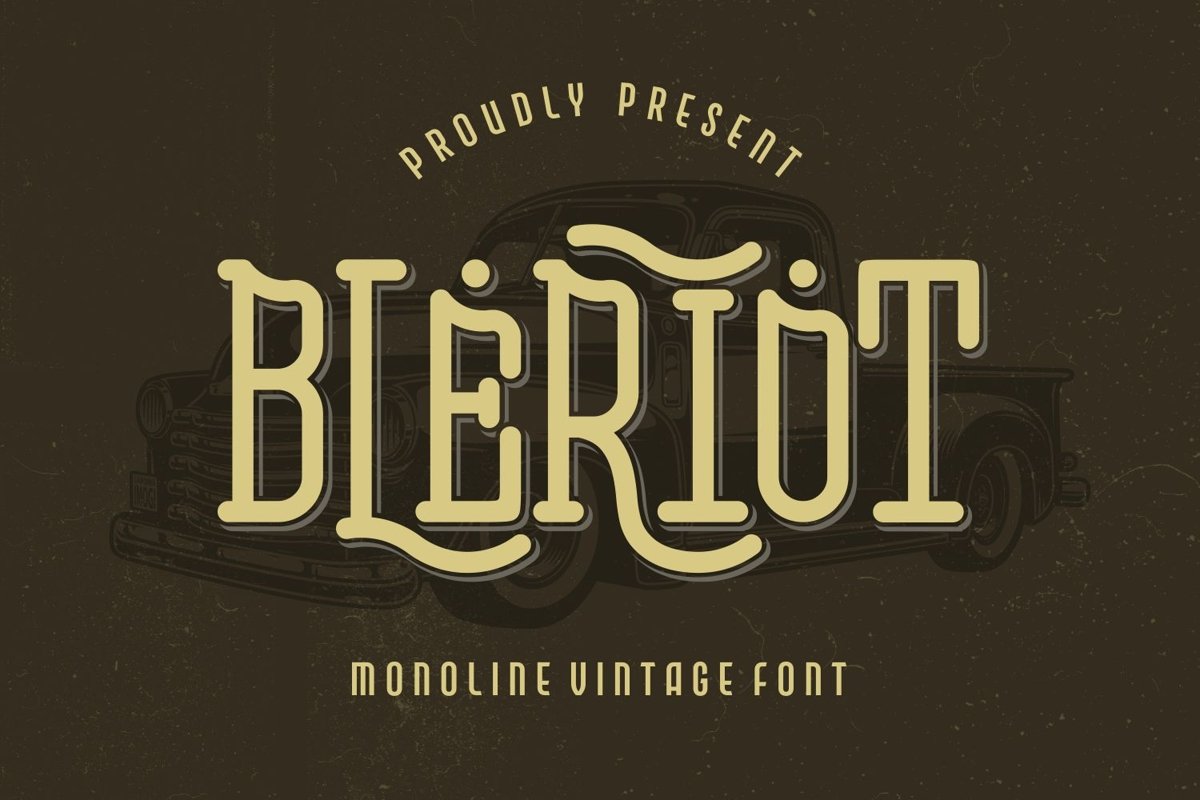
Bleriot is an authentic serif display come with vintage themes. This font have beautiful ligature characters. It matches applies in some designs such as the logotype, brand, packaging, quotes, poster, t-shirt, badge and more custom design. The features uppercase, lowercase, numeral, punctuation & symbol, multilingual support, ligatures, PUA encoded (fully accessible without additional design software).